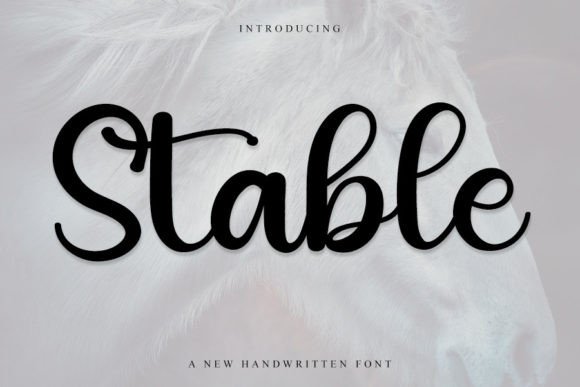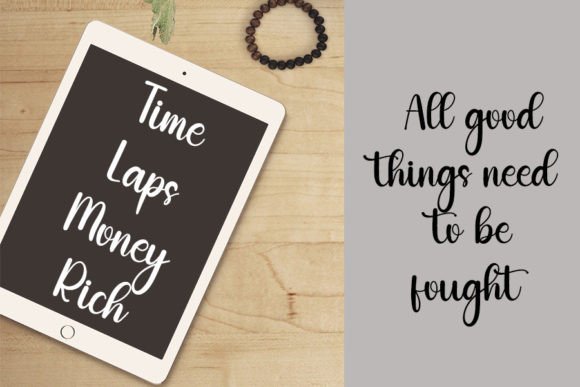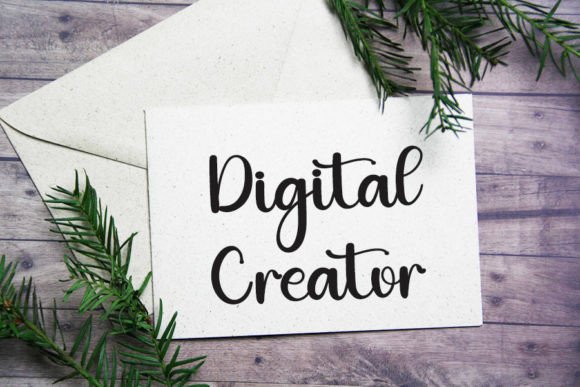
About Stable Font
“Stable” is more than just a font; it’s a trendy handwritten typeface with a contemporary atmosphere and impeccable form, drawing inspiration from timeless classic calligraphy. This font is meticulously designed to infuse elegance and class into your design projects, offering a versatile tool that can adapt to various creative needs.
The trendy handwritten style of “Stable” is characterized by its contemporary and fashionable appearance. The characters are crafted with a modern flair, making this font suitable for a wide range of design applications. Whether you’re working on logos, branding, invitations, or any creative endeavor, “Stable” brings a touch of trendiness to your text.
The impeccable form of “Stable” ensures that each character is thoughtfully crafted, contributing to the overall elegance of the font. This attention to detail makes it a reliable choice for projects where a sophisticated and classy aesthetic is desired. The font becomes a valuable asset for conveying a sense of refinement.
The versatility of “Stable” shines through in its adaptability to different design contexts. Whether used in digital or print materials, this font seamlessly integrates into various projects, adding a contemporary and elegant feel. Its ability to write various kinds of products according to the aspect of each need makes it particularly suitable for designers seeking a typeface that can convey different moods and styles.
In summary, “Stable” is more than just a font; it’s a trendy handwritten typeface that adds a contemporary atmosphere and impeccable form to your designs. Embrace its versatility for logos, branding, invitations, and more, confident that “Stable” will infuse your creations with elegance and class. Let it be the font that adds a touch of trendiness to your design projects.